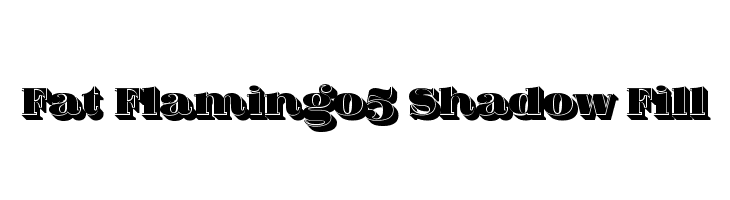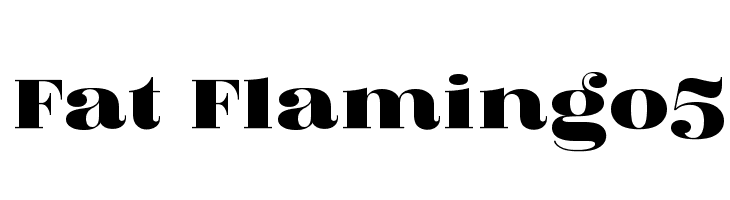
A bold, playful font with a shadow effect, perfect for eye-catching designs.
A bold, solid font with a vintage yet modern appeal, ideal for impactful designs.